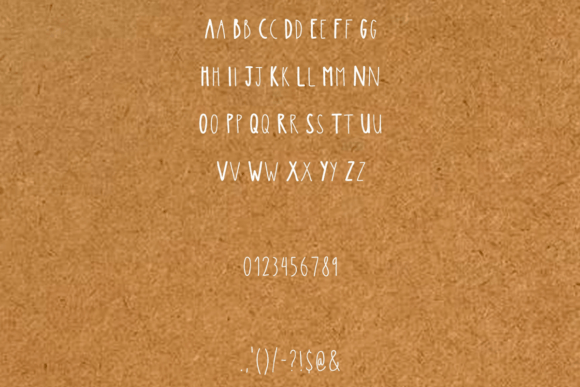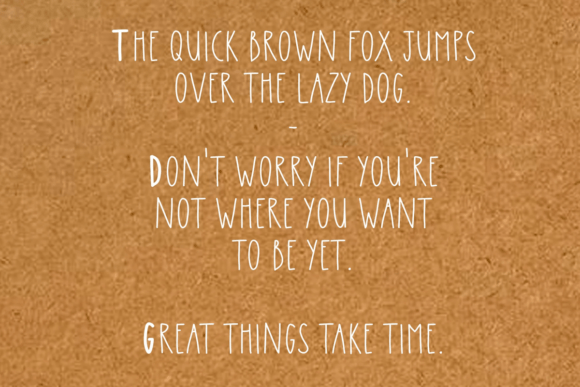
Discover the Charm of Farmhouse Tall Skinny Fonts: Elevate Your Designs with Rustic Elegance
When it comes to evoking a sense of rustic charm and countryside elegance in your designs, the right typography can make all the difference. A “Farmhouse Tall Skinny” font is like writing on a rustic, country-style signpost. It’s tall and narrow, with letters that look handcrafted and friendly, perfect for adding a touch of countryside charm to your designs. In this article, we’ll explore the characteristics, uses, and benefits of Farmhouse Tall Skinny fonts, and how you can incorporate them into your design projects.
What is a Farmhouse Tall Skinny Font?
A Farmhouse Tall Skinny font is a type of font that is characterized by its tall and narrow letterforms. These fonts are often inspired by traditional rustic and country-style signage, with a handcrafted feel that gives them a unique and charming personality. The letters in a Farmhouse Tall Skinny font are often slightly irregular, with a tactile quality that makes them look like they were hand-painted or carved.
Characteristics of Farmhouse Tall Skinny Fonts
Farmhouse Tall Skinny fonts typically have the following characteristics:
- Tall and narrow letterforms: The letters in a Farmhouse Tall Skinny font are elongated and slender, giving them a distinctive and elegant appearance.
- Handcrafted feel: Farmhouse Tall Skinny fonts often have a tactile quality that makes them look like they were hand-painted or carved.
- Irregular lettering: The letters in a Farmhouse Tall Skinny font may be slightly irregular, with subtle variations in size and shape.
- Rustic and country-style inspiration: Farmhouse Tall Skinny fonts are often inspired by traditional rustic and country-style signage.
Uses for Farmhouse Tall Skinny Fonts
Farmhouse Tall Skinny fonts are versatile and can be used in a variety of design projects, including:
- Signage: Farmhouse Tall Skinny fonts are perfect for creating rustic and charming signs, such as welcome signs, directional signs, and menu boards.
- Branding and packaging: Farmhouse Tall Skinny fonts can add a touch of rustic elegance to your brand’s packaging and marketing materials.
- Invitations and stationery: Farmhouse Tall Skinny fonts are ideal for creating charming and rustic invitations, stationery, and greeting cards.
- Digital design: Farmhouse Tall Skinny fonts can also be used in digital design projects, such as social media graphics, blog headers, and website titles.
Benefits of Using Farmhouse Tall Skinny Fonts
Using a Farmhouse Tall Skinny font in your design projects can have several benefits, including:
- Unique and distinctive look: Farmhouse Tall Skinny fonts have a unique and distinctive look that can help your designs stand out.
- Rustic and charming personality: Farmhouse Tall Skinny fonts have a rustic and charming personality that can add a touch of warmth and elegance to your designs.
- Versatility: Farmhouse Tall Skinny fonts are versatile and can be used in a variety of design projects.
Tips for Using Farmhouse Tall Skinny Fonts
Here are some tips for using Farmhouse Tall Skinny fonts in your design projects:
- Use them sparingly: Farmhouse Tall Skinny fonts can be quite bold and eye-catching, so use them sparingly to avoid overwhelming your design.
- Pair them with complementary fonts: Pair your Farmhouse Tall Skinny font with a complementary font to create visual interest and contrast.
- Experiment with different colors: Farmhouse Tall Skinny fonts look great in a variety of colors, so experiment with different colors to find the one that works best for your design.
In conclusion, Farmhouse Tall Skinny fonts are a great way to add a touch of rustic charm and countryside elegance to your designs. With their unique and distinctive look, handcrafted feel, and versatility, they are perfect for a variety of design projects, from signage and branding to invitations and digital design. By following the tips outlined above, you can make the most of Farmhouse Tall Skinny fonts and create designs that are truly memorable.